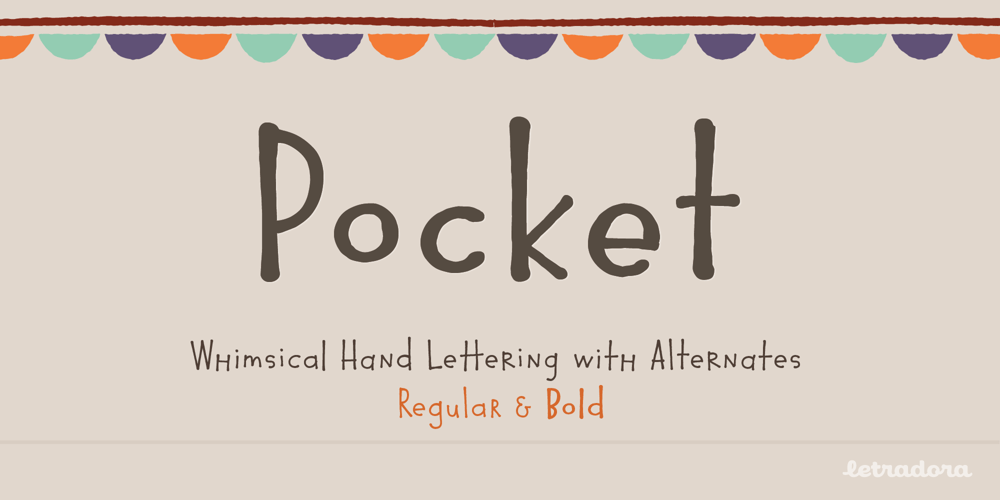
Pocket Px Font Family was designed by Kemie Guaida Ortega and published by Letradora. Pocket Px contains 2 styles and family package options. Inspired by illustration lettering, Pocket has a contemporary, quirky feel. Its combination of narrow and round forms give it a humorous feel.It has support for most western and central European languages, and has alternates for most letterforms, allowing for variations that make it look authentically hand-drawn.Check out other fonts in the Pocket family:Pocket Serif and Pocket Swash